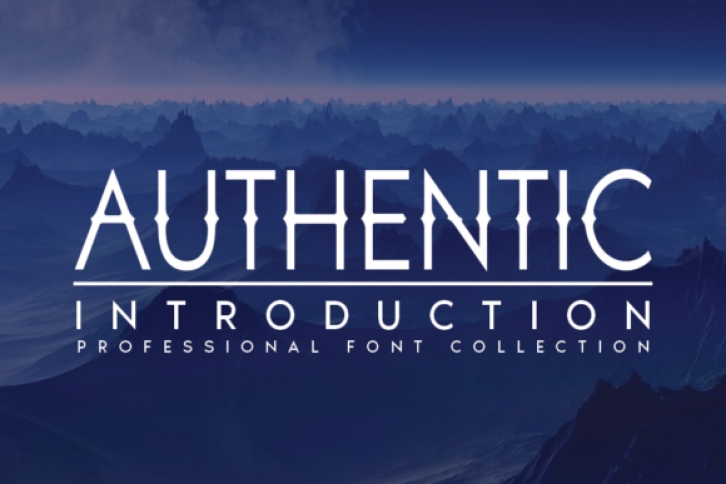
Authentic is a modern and neat lettered yet distinct sans serif font. It can easily be matched to an incredibly large set of projects, so add it to your creative ideas and notice how it makes them stand out!